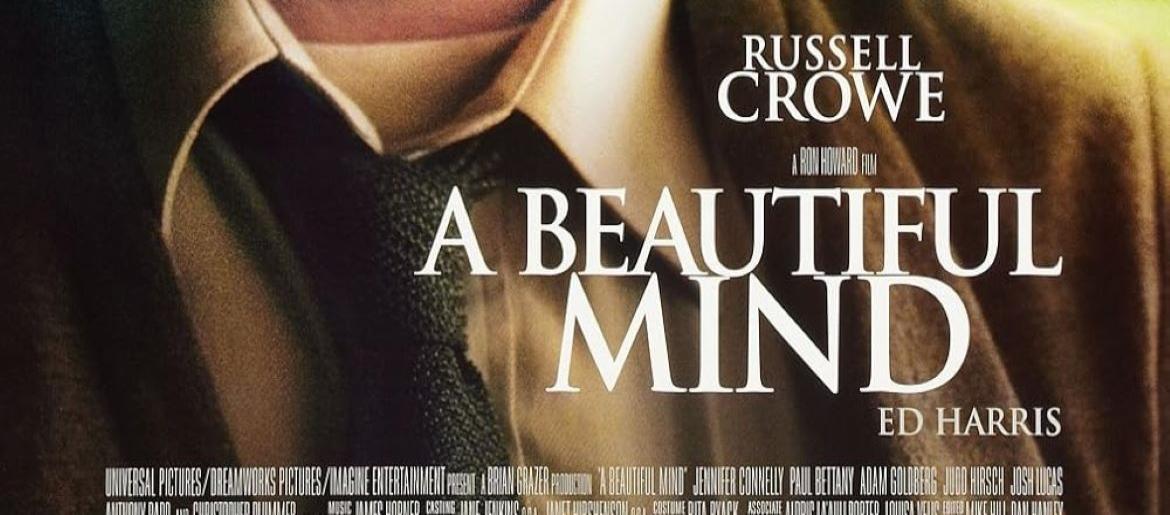
A Beautiful Mind Font
The A Beautiful Mind font carries the refined, intellectual feel of the film itself, blending sophistication with subtle intrigue. In the movie’s posters and titles, the typography leans toward clean, classic serif styles—fonts that suggest intelligence, academia, and timelessness. The A Beautiful Mind font doesn’t shout; instead, it speaks with quiet authority, much like the brilliant but troubled mind of John Nash. Fonts that echo this style are elegant serif families such as Trajan, Times New Roman, or Garamond, all of which give off that scholarly and cinematic tone, with Trajan in particular being associated with prestige in Hollywood posters.
About A Beautiful Mind
A Beautiful Mind is a 2001 biographical drama directed by Ron Howard, based on Sylvia Nasar’s biography of mathematician John Nash. Starring Russell Crowe as Nash, alongside Jennifer Connelly, Ed Harris, and Paul Bettany, the film chronicles Nash’s groundbreaking work in game theory, his struggle with paranoid schizophrenia, and his eventual Nobel Prize in Economics. Featuring a screenplay by Akiva Goldsman and James Horner’s moving score, the film won four Academy Awards including Best Picture, Best Director, and Best Supporting Actress for Connelly. The film sensitively portrays mental illness, love, and intellectual triumph.